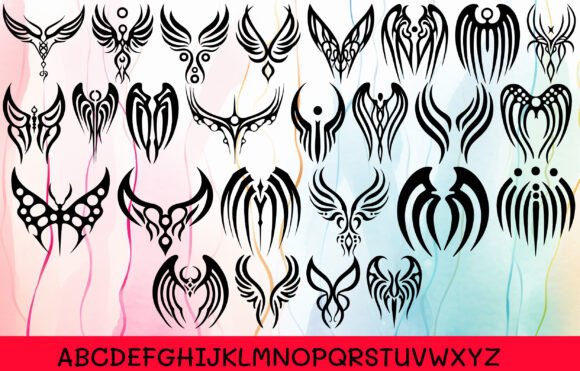
Introduction to Indian Tribal Wing Font
Wing Indian Tribal Style Dingbats Fonts, featuring 26 unique wing-inspired designs crafted in a captivating tribal style.
Each letter from A to Z is represented by an intricate and artistic pattern, perfect for enhancing creative projects, crafts, logos, and digital designs Download and elevate your designs today.
Key Features of Indian Tribal Wing Font